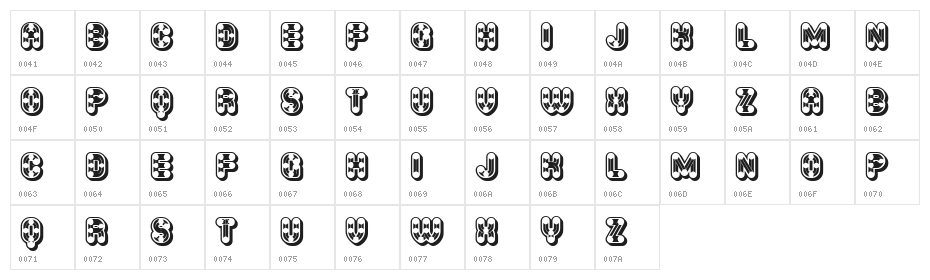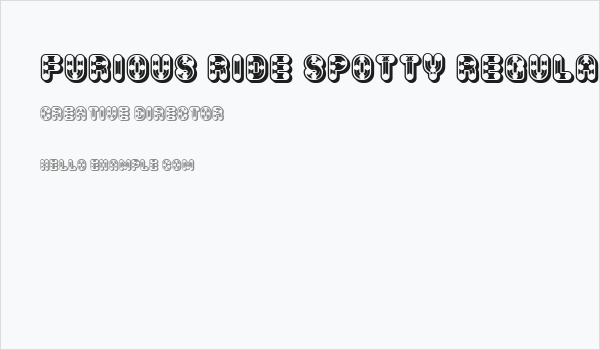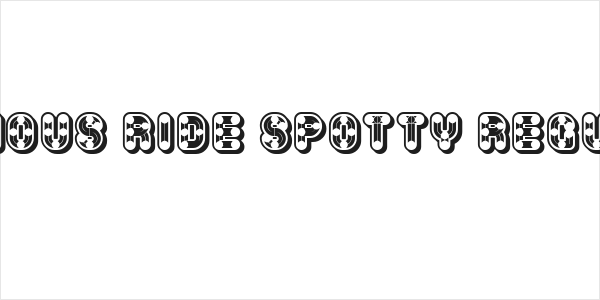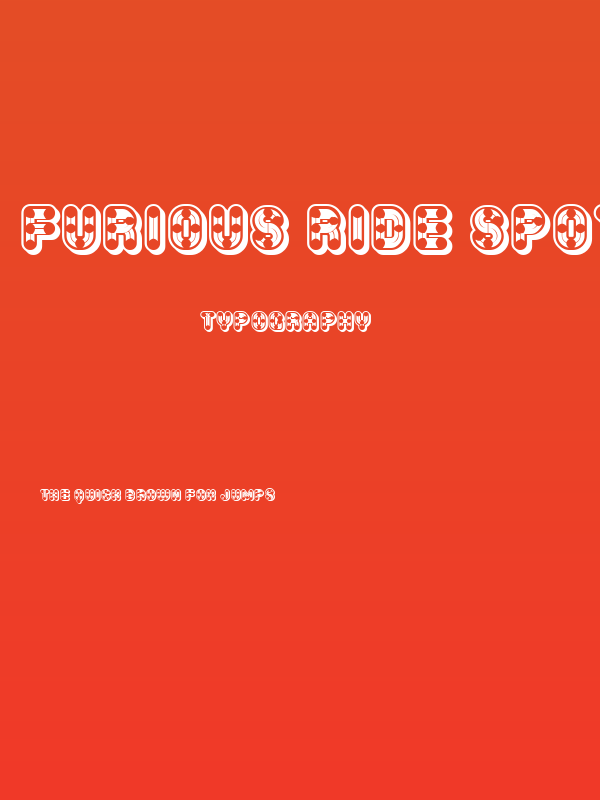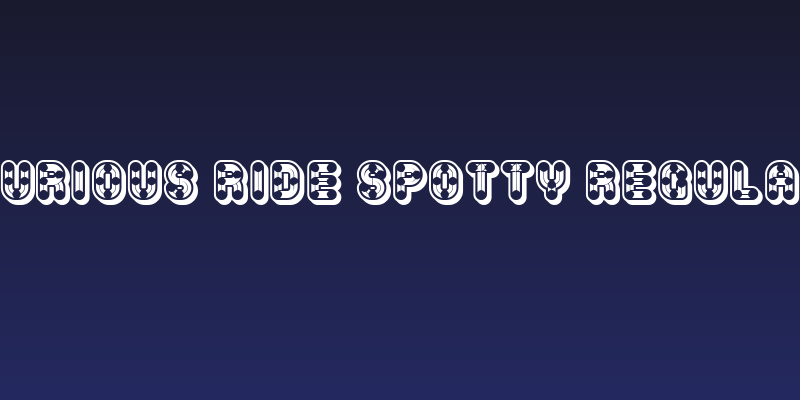
Furious Ride Spotty Regular Font
Furious Ride Spotty Regular Description
This font features a bold, playful design with a unique spotty pattern inside each character. The letters are outlined with a thick black border, enhancing their visibility and giving them a three-dimensional effect. The interior pattern consists of irregular shapes that create a dynamic and energetic look. This font is eye-catching and ideal for projects that require a fun and lively aesthetic. Its boldness ensures readability, while the decorative elements add a layer of creativity and uniqueness.
| Overall Style | Playful, Energetic, Decorative |
| Proposed Projects | Perfect for children's books, playful branding, party invitations, and creative posters. |